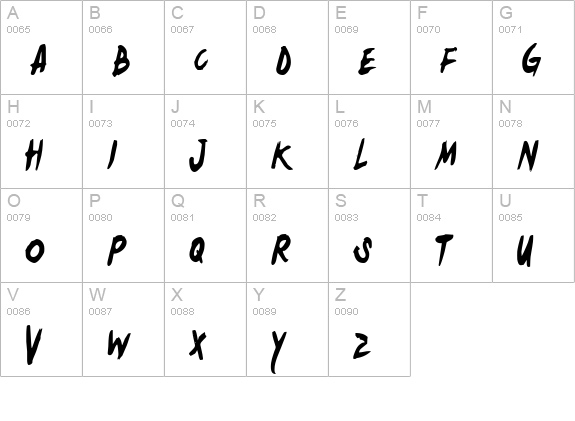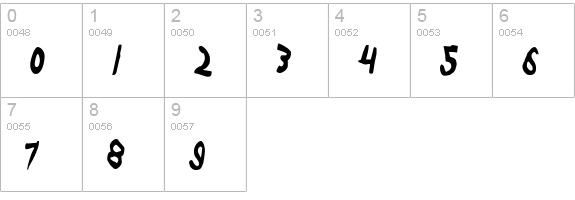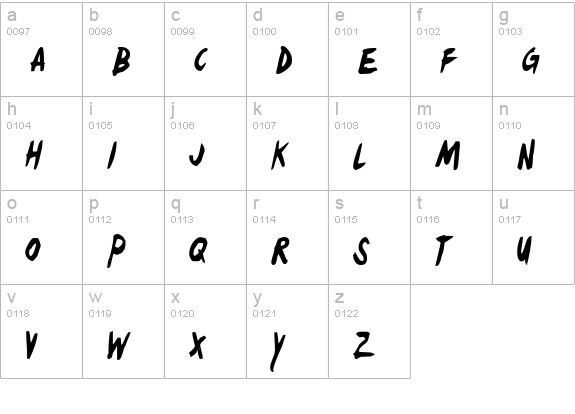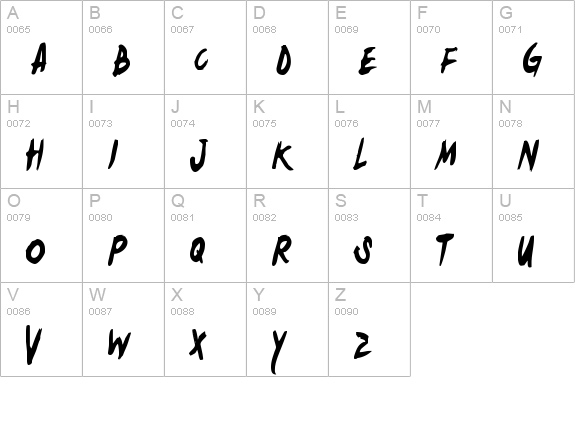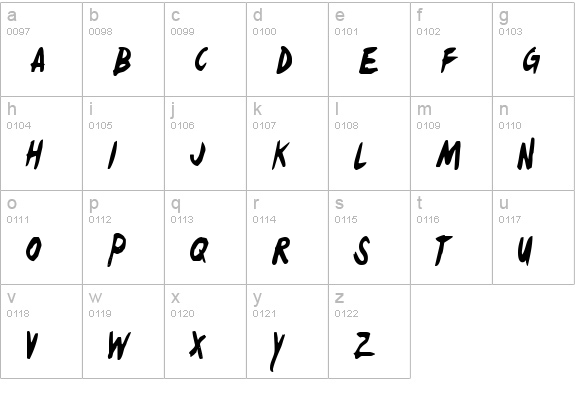
Yellowjacket Condensed is a distinctive, condensed-width variant in the Yellowjacket typeface family \xE2\x80\x94 well suited to design and typography projects.
Yellowjacket Condensed font is a bold and modern typeface that exudes confidence and style. With its condensed design and sharp edges, this font is perfect for making a statement in your designs. Whether you are creating posters, logos, or branding materials, Yellowjacket Condensed font will add a touch of sophistication and elegance. And the best part? Yellowjacket Condensed font is available for free download at FontsMarket.com. This means you can easily access this stunning font and use it in your projects without any cost. Don't miss out on this amazing opportunity to enhance your designs with the sleek and contemporary Yellowjacket Condensed font. Download it now and elevate your creative work to the next level!